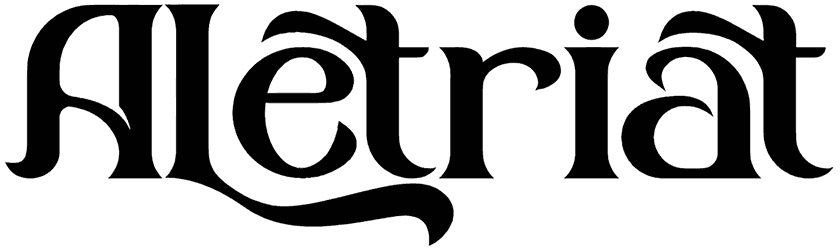
Aletriat Font
If you need a fancy and groovy look for your texts, this ligature serif font is ideal for you. Aletriat font is styled with a classic look and a wavy, elegant design with bold letters and curvy elements.
Aletriat’s characters carry a slight romantic feeling with them and have a wobbly makeover. It will be a good choice for elegant formal headlines, and you can also use it for movie posters, retro signs, or book titles.